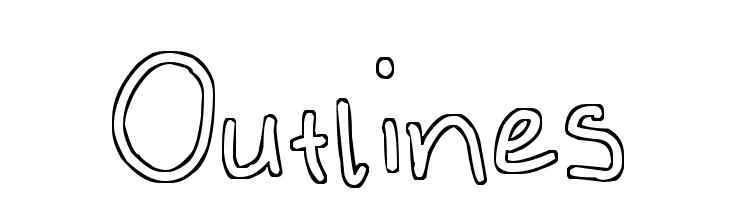
A playful, bold font with a hand-drawn outline effect.
A bold, outlined font with consistent thickness and rounded edges for a striking visual impact.
A bold, outlined font with a dynamic and energetic style.